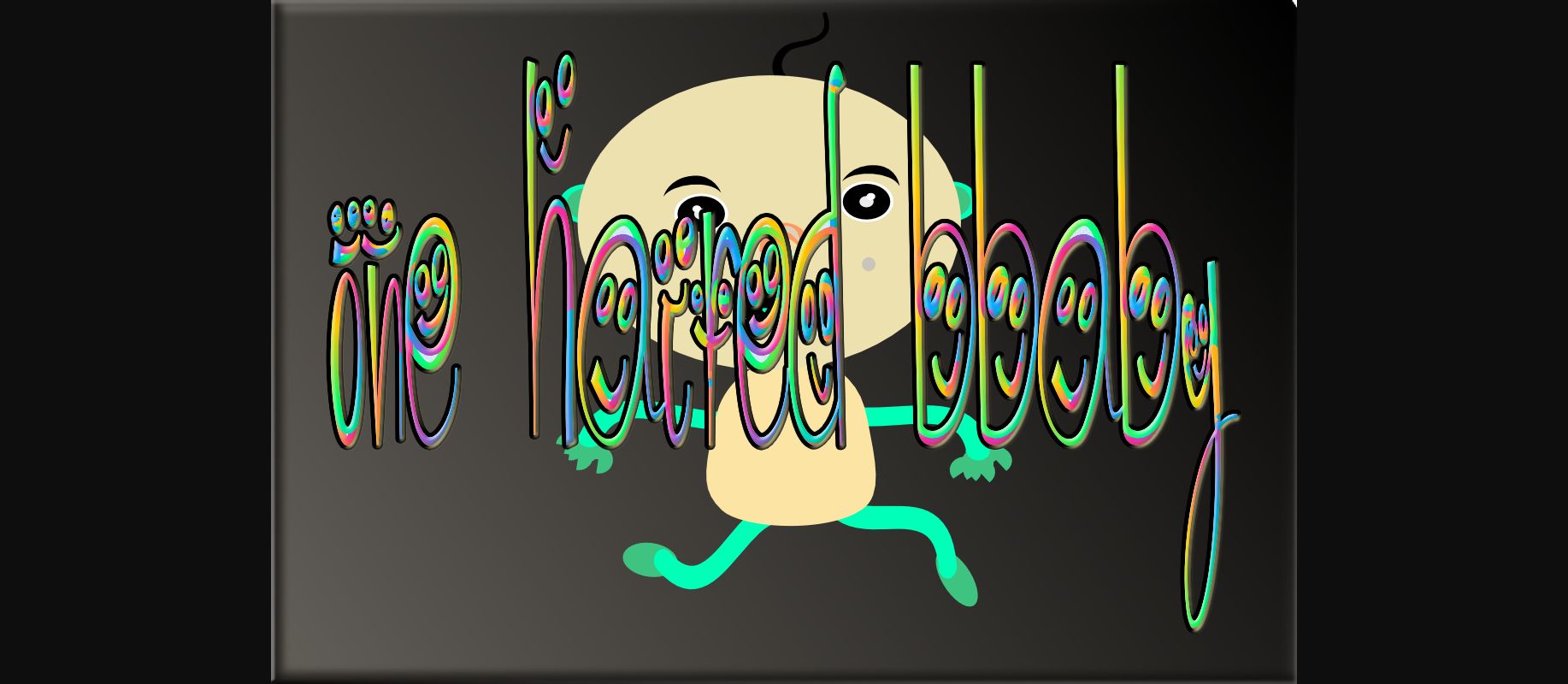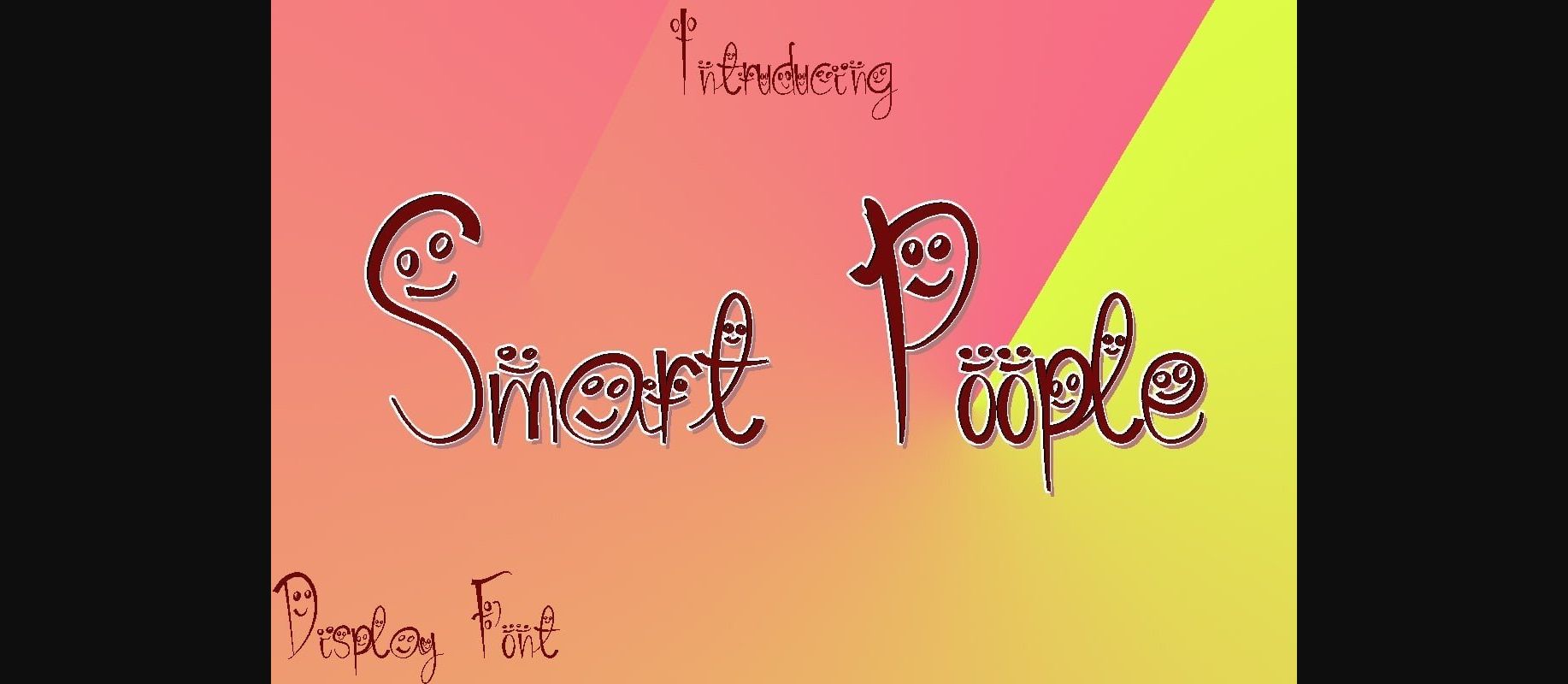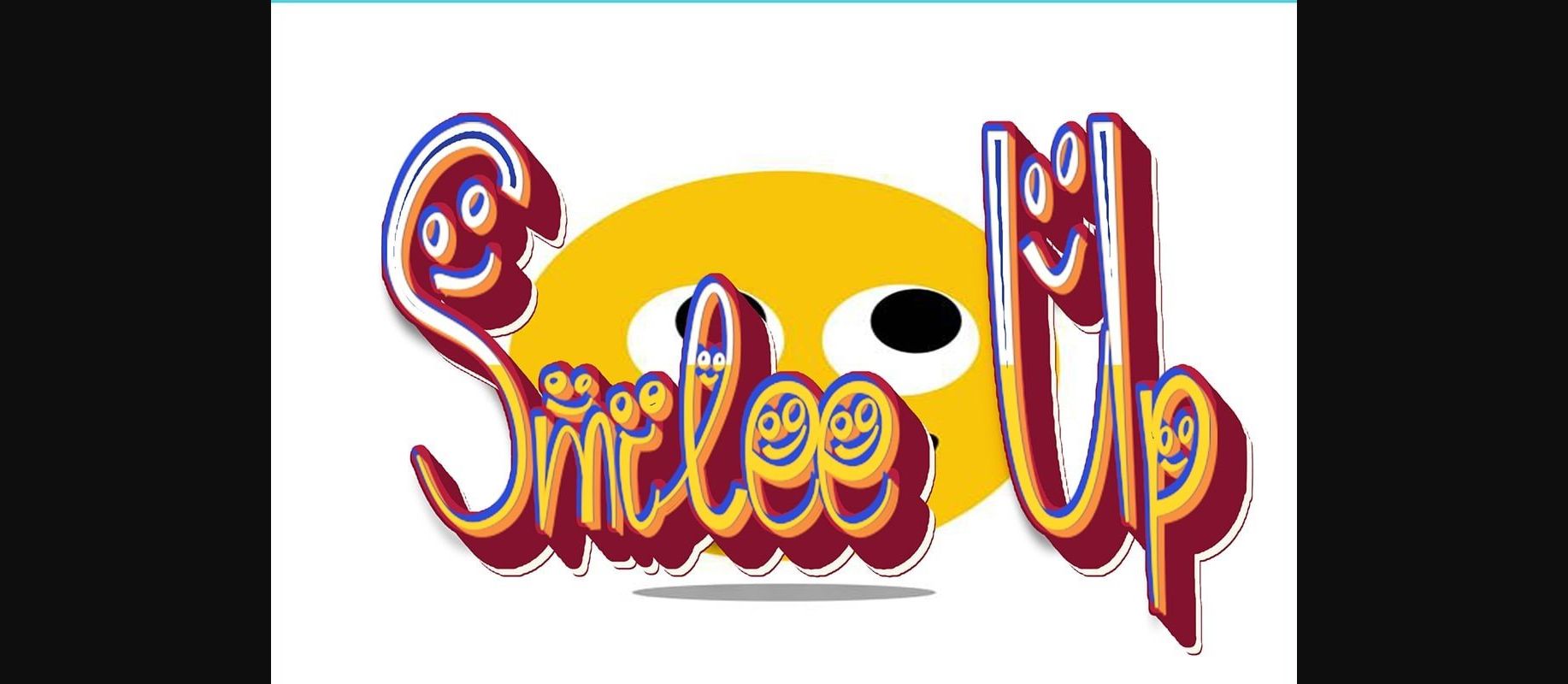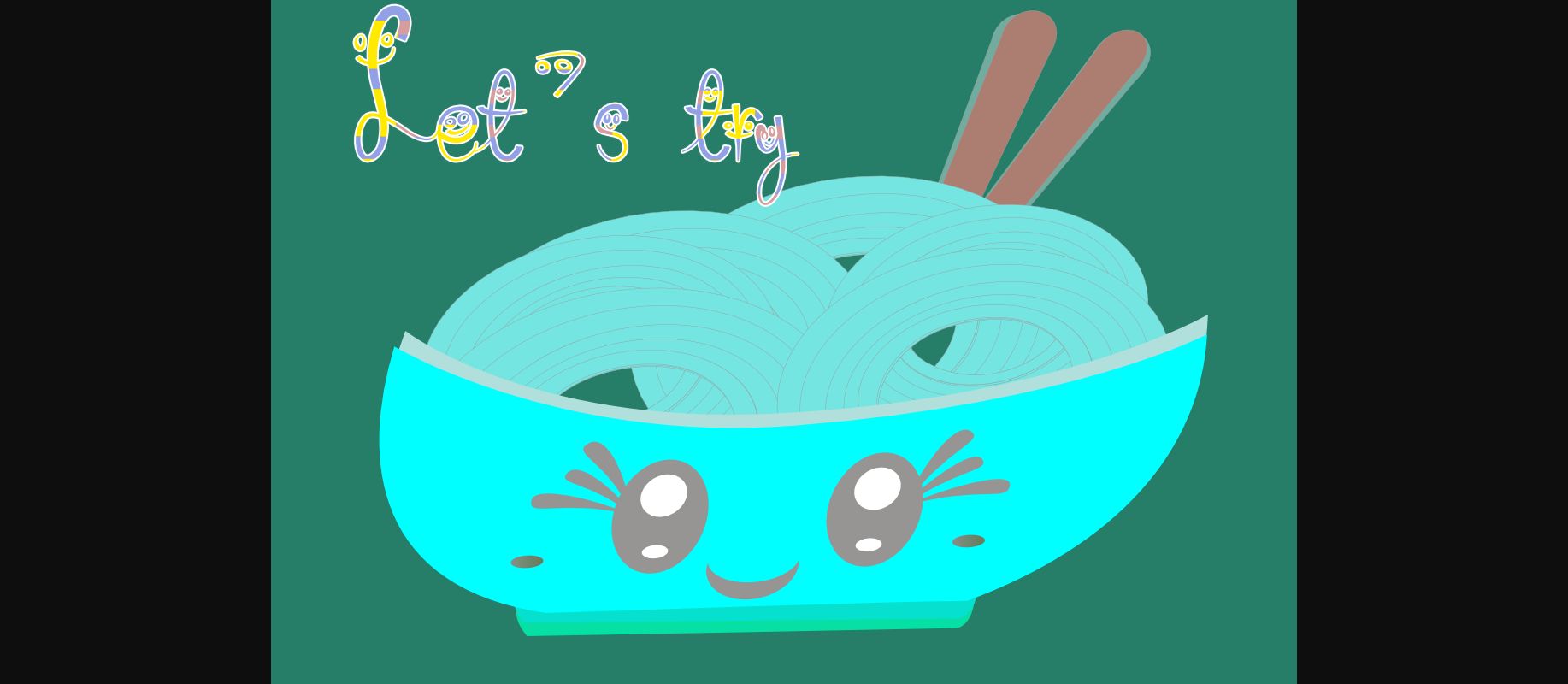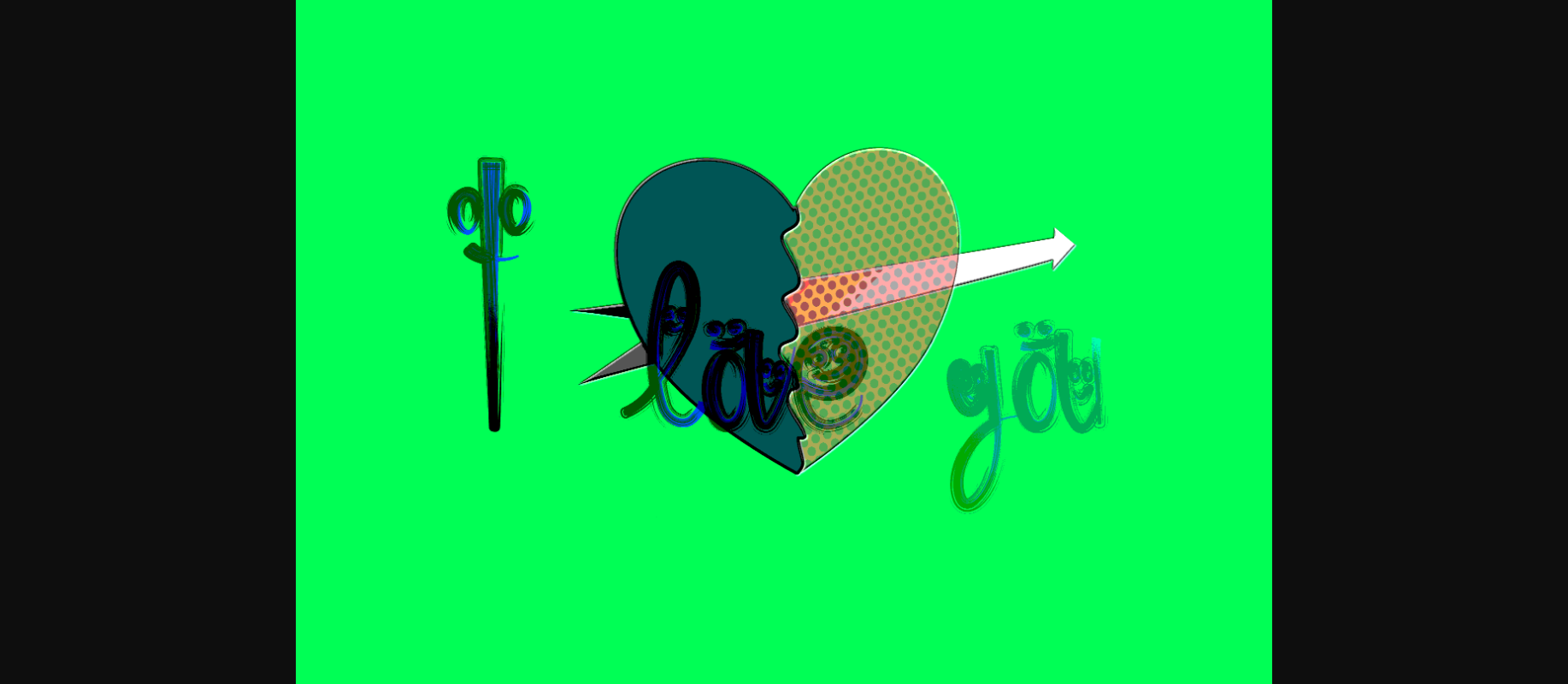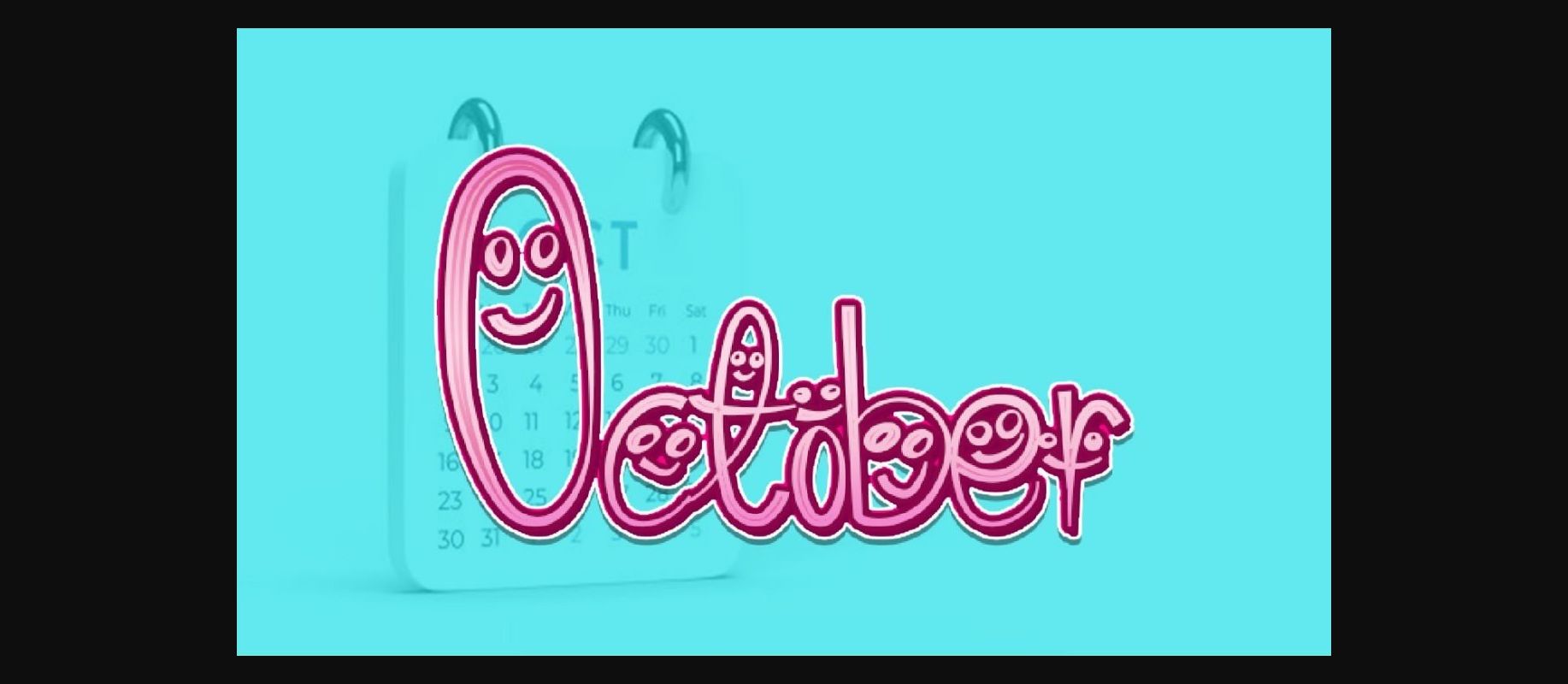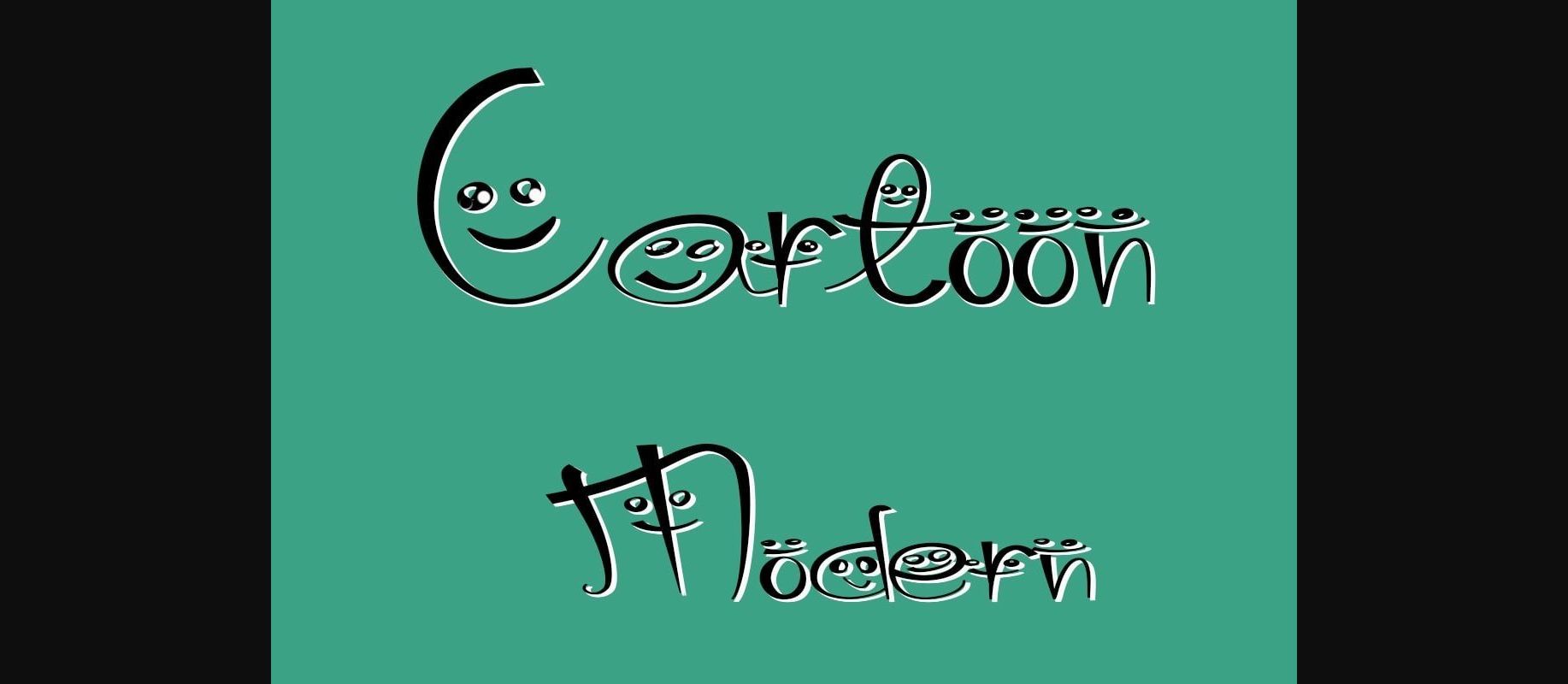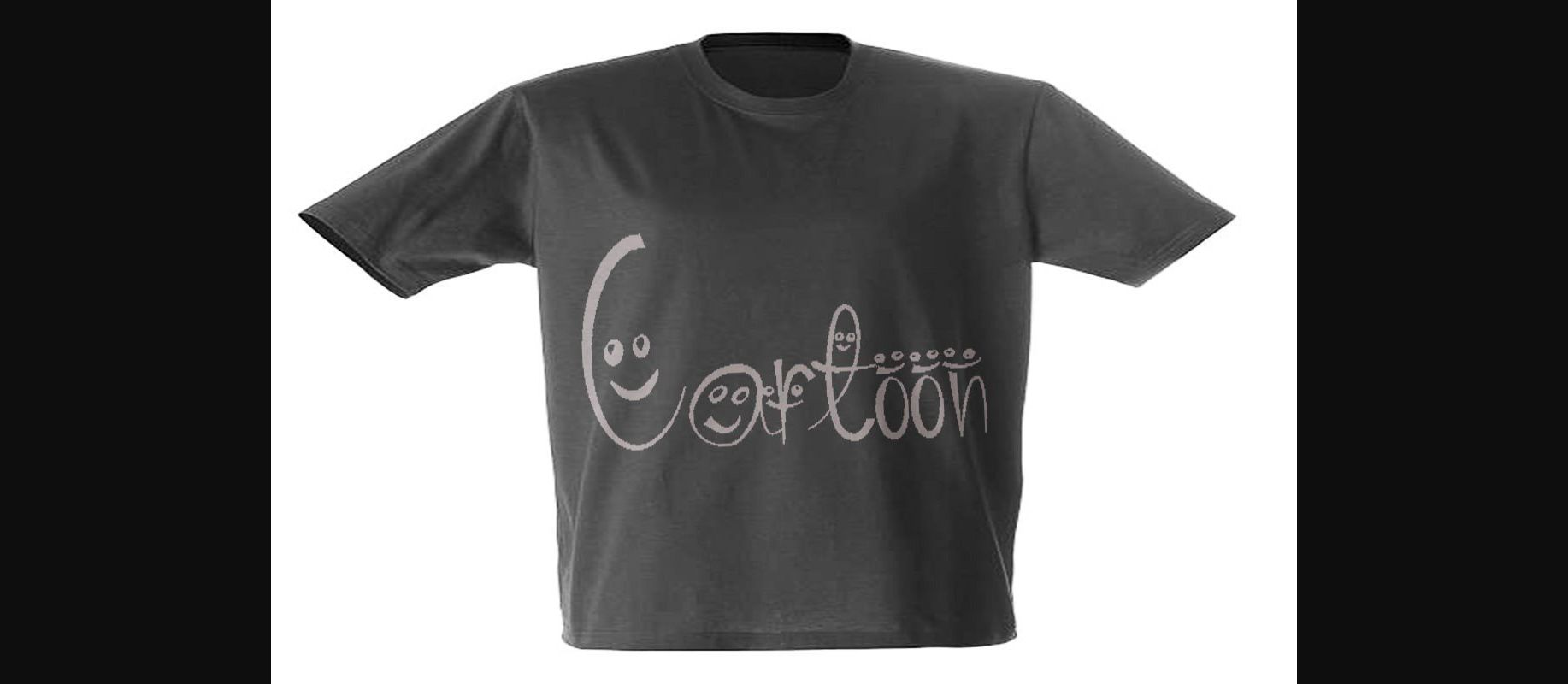
HomeDecorative FontsCartoon Modern Font Decorative Fonts Cartoon Modern Font FacebookXPinterestWhatsApp 1 of 11 ... Cartoon Modern Font Poster 2... Cartoon Modern Font Poster 3... Cartoon Modern Font Poster 4... Cartoon Modern Font Poster 5... Cartoon Modern Font Poster 6... Cartoon Modern Font Poster 7... Cartoon Modern Font Poster 8... Cartoon Modern Font Poster 9... Cartoon Modern Font Poster 10... Cartoon Modern Font Poster 11... About Cartoon Modern Font Cartoon is a cute, jolly, paint-brushed decorative font. Whimsical and a little bit quirky, this typeface will brighten up each of your designs. DOWNLOAD NOW People also explored Dining Car JNL Font Western Flower Font Demilton Font Tough As Nails BB Billbo Script Font Winter Bright Font Boriska Font Emotive Type Bestona Font 402 0 TagsCartoon Modern Font Previous articleWinter Xmas FontNext articleMagic Cat Font LEAVE A REPLY Cancel reply Comment: Please enter your comment! Name:* Please enter your name here Email:* You have entered an incorrect email address! Please enter your email address here Website: Save my name, email, and website in this browser for the next time I comment. Personal Use Free Foolish Hand Personal Use Free Read more about this font Kumadinya Personal Use Free Read more about this font Cosmos Personal Use Free Read more about this font Boby Personal Use Free Read more about this font BLOG Where to Buy American Fonts Online in 2024 Where to Buy American Fonts Online: The Ultimate Guide for 2024 Looking for the perfect American font to elevate your design projects? You're in the... Top 7 Google Fonts Alternatives for Faster and Privacy-Friendly Web Design (2025) 5 Fonts That Will Dominate Design Trends in 2026 Fonts That Capture the Spirit of New York City